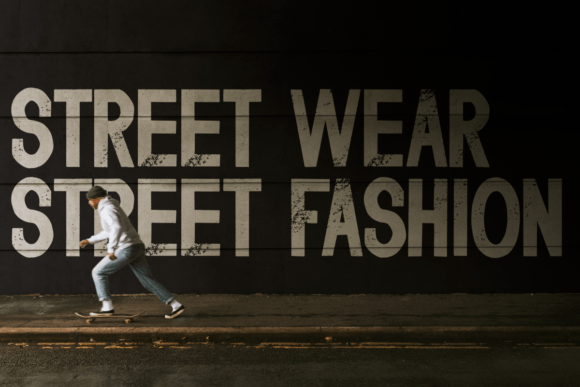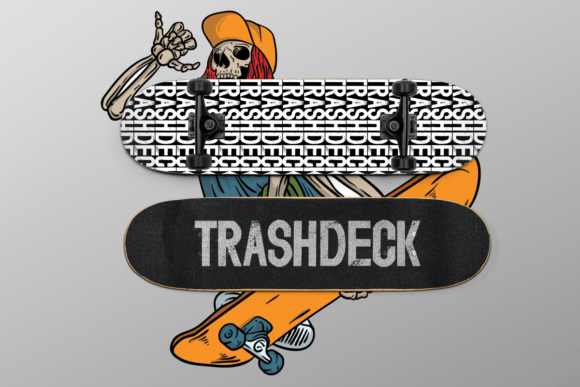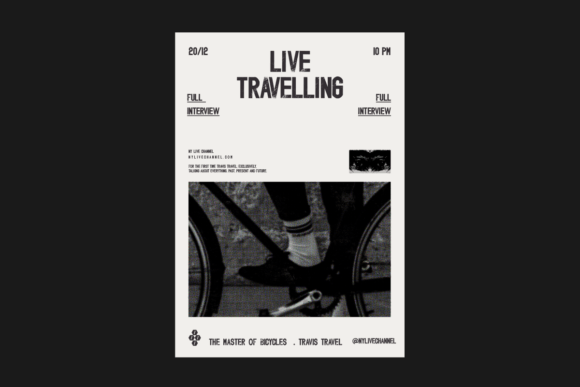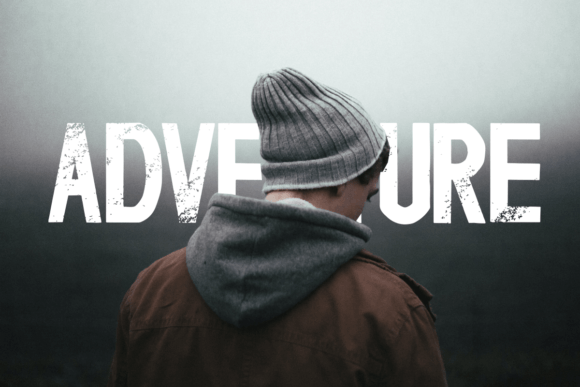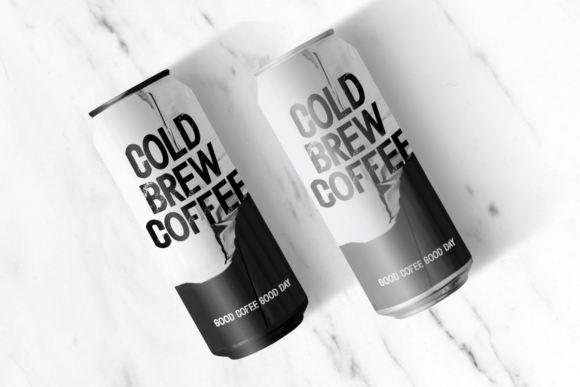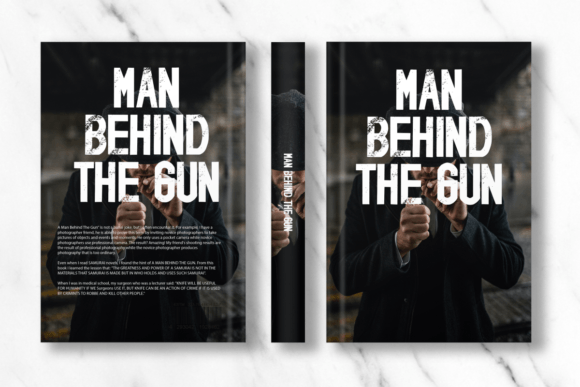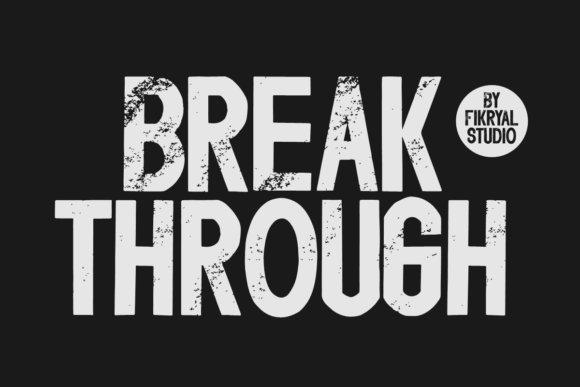
Introducing Breakthrough Font: The Modern Sans-Serif Revolution
In the world of typography, fonts play a crucial role in conveying messages, expressing emotions, and creating brand identities. For designers, crafters, and marketers, finding the perfect font can be a daunting task. However, with the emergence of Breakthrough Font, the search is over. This modern and cool sans-serif font is taking the design world by storm, and for good reason.
What is Breakthrough Font?
Breakthrough Font is a sleek and contemporary sans-serif font designed to make a statement. Its clean lines, precise curves, and exceptional legibility make it an ideal choice for a wide range of applications. From logos and branding to title, social media posts, advertisements, product packaging, and more, Breakthrough Font is the perfect companion for designers and crafters looking to elevate their creative projects.
Key Features of Breakthrough Font
- Modern and Cool Design: Breakthrough Font boasts a modern and cool design that instantly grabs attention. Its unique style is perfect for creating stunning visual effects and making a lasting impression.
- Versatility: This font is incredibly versatile and can be used for various purposes, including logos, branding, title, social media posts, advertisements, product packaging, product designs, labels, photography, watermarks, special events, magazines, web designs, and more.
- Exceptional Legibility: Breakthrough Font is designed to be highly legible, ensuring that your message is conveyed clearly and effectively, regardless of the medium or platform.
- Easy to Read: The font’s clean lines and precise curves make it easy to read, even at small sizes, making it perfect for body text, headings, and titles.
Use Cases for Breakthrough Font
Breakthrough Font is an incredibly versatile font that can be used in a variety of contexts. Here are some use cases where this font truly shines:
- Logo Design: Create a stunning logo that makes a lasting impression with Breakthrough Font.
- Branding: Establish a strong brand identity with this modern and cool sans-serif font.
- Social Media Posts: Elevate your social media presence with eye-catching posts designed with Breakthrough Font.
- Advertisements: Create attention-grabbing ads that drive results with this exceptional font.
- Product Packaging: Make your product stand out on store shelves with Breakthrough Font.
Breakthrough Font offers numerous benefits for designers and crafters, including:
- Time-Saving: With Breakthrough Font, you can create stunning designs in a fraction of the time it would take with other fonts.
- Increased Creativity: This font’s unique style and versatility inspire creativity and experimentation.
- Professional Results: Achieve professional-looking results with Breakthrough Font, even if you’re a beginner.
In conclusion, Breakthrough Font is a game-changer for designers and crafters looking for a modern and cool sans-serif font. Its exceptional legibility, versatility, and unique style make it perfect for a wide range of applications. Whether you’re creating logos, branding, social media posts, or advertisements, Breakthrough Font is the perfect companion to help you elevate your creative projects and achieve professional-looking results.